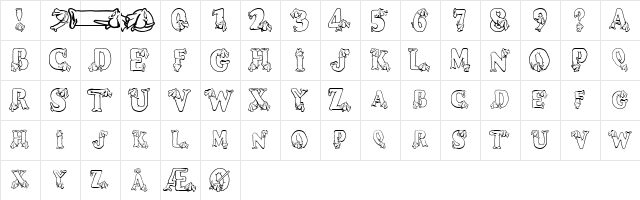
AlphaElephant Regular Free Font
AlphaElephant Regular
Design Context for AlphaElephant
AlphaElephant is a composed and adaptable typeface that performs quietly and consistently across a wide range of design contexts.
Pro Tip: Use AlphaElephant in both headline and body roles to test its range before committing to a single application.